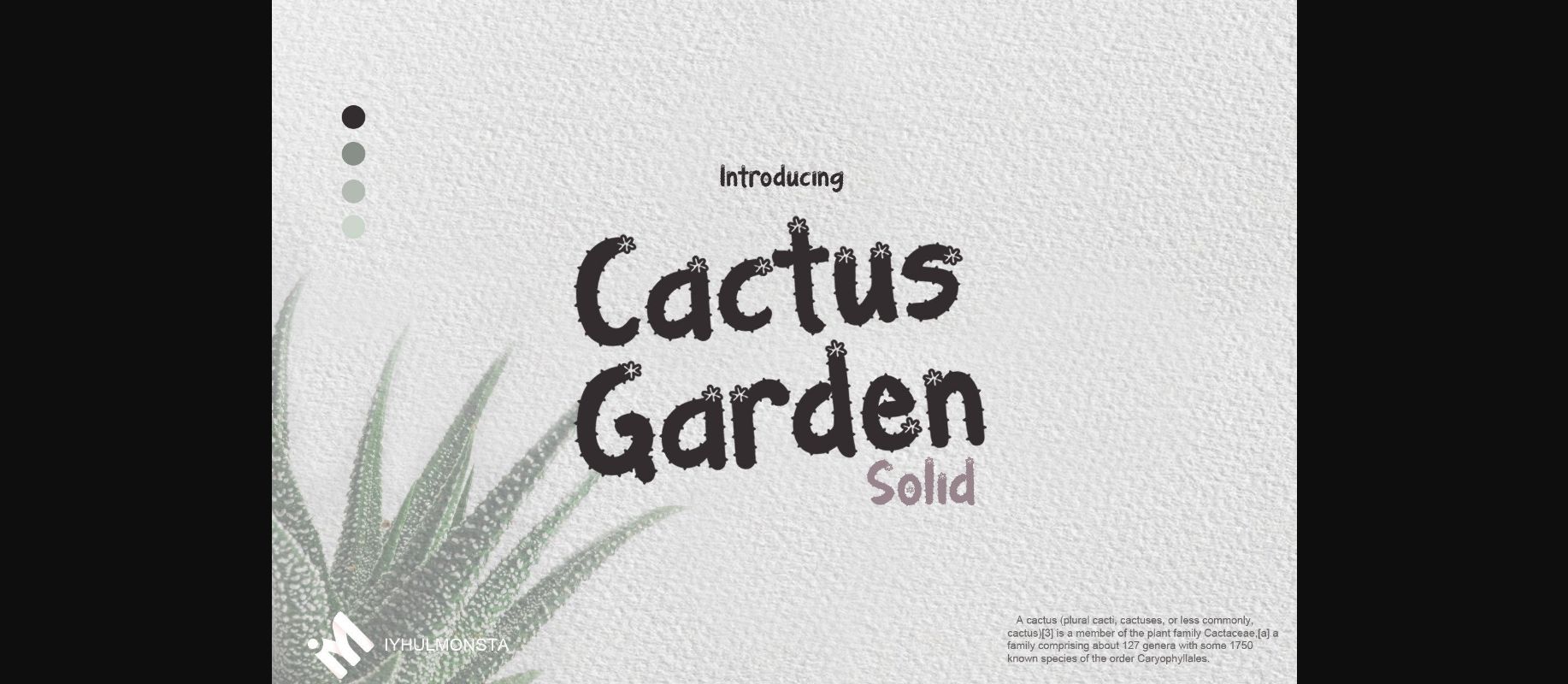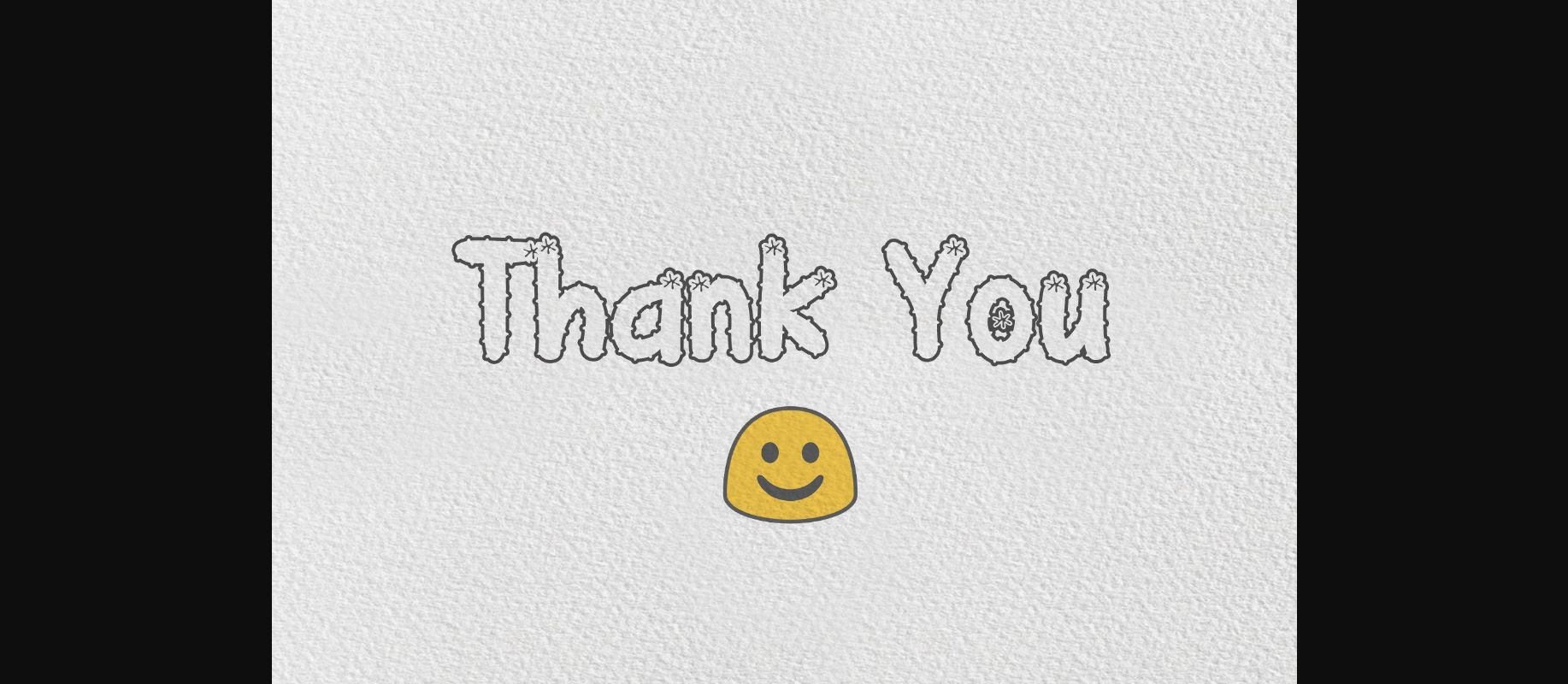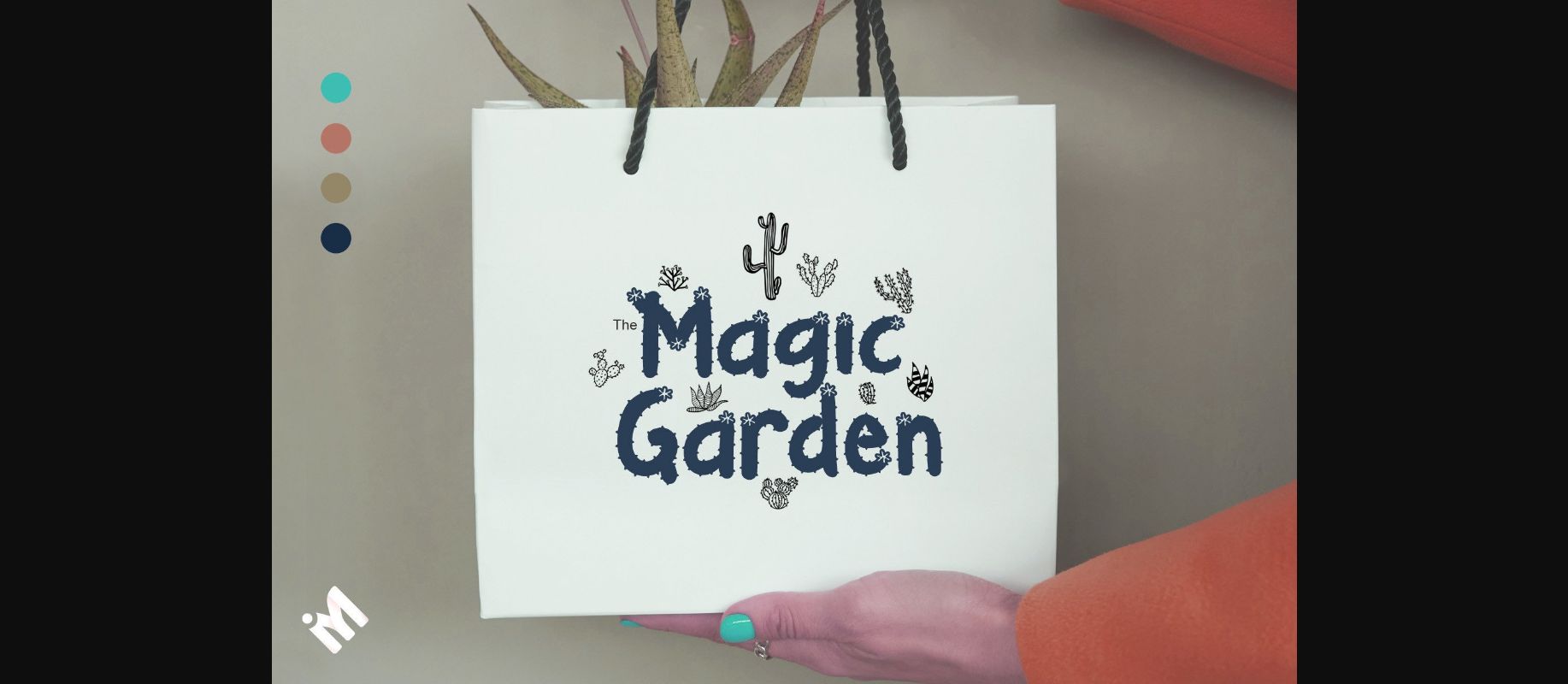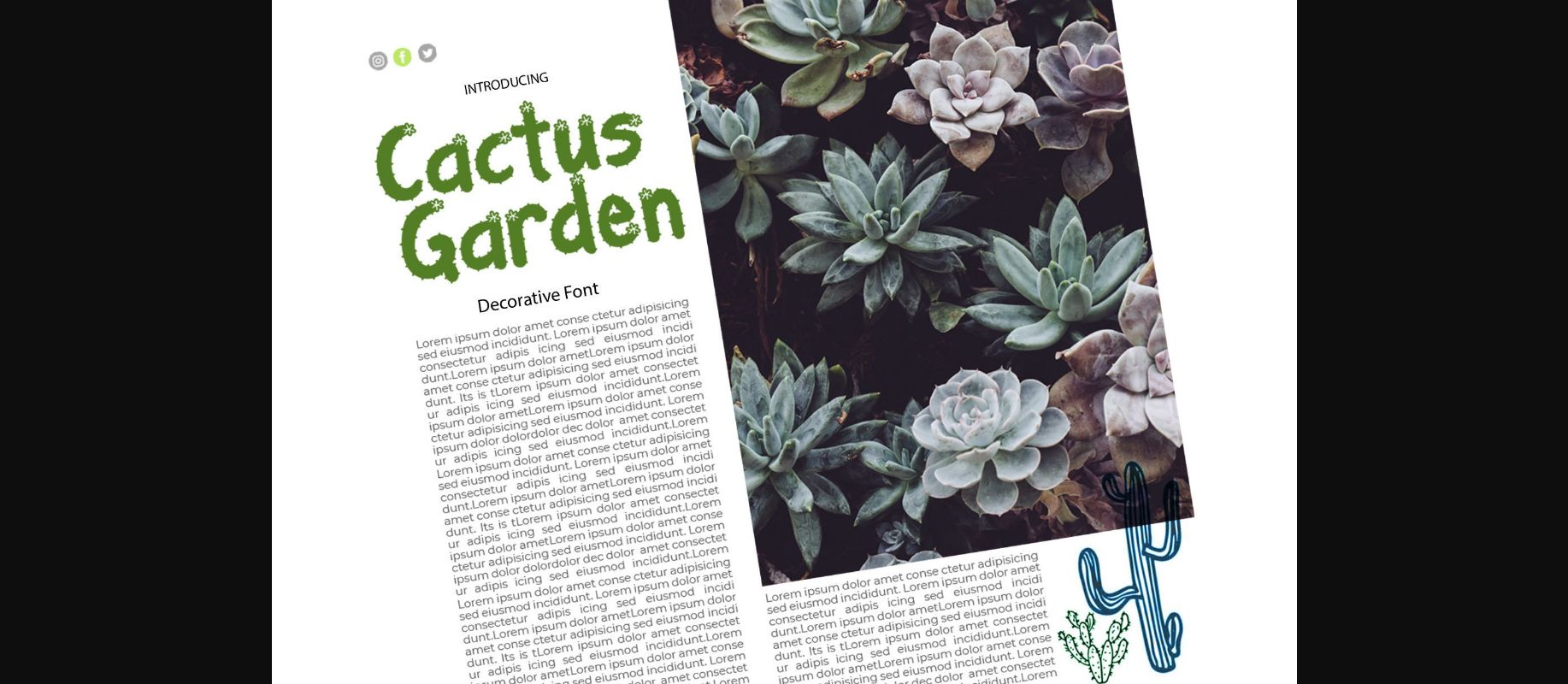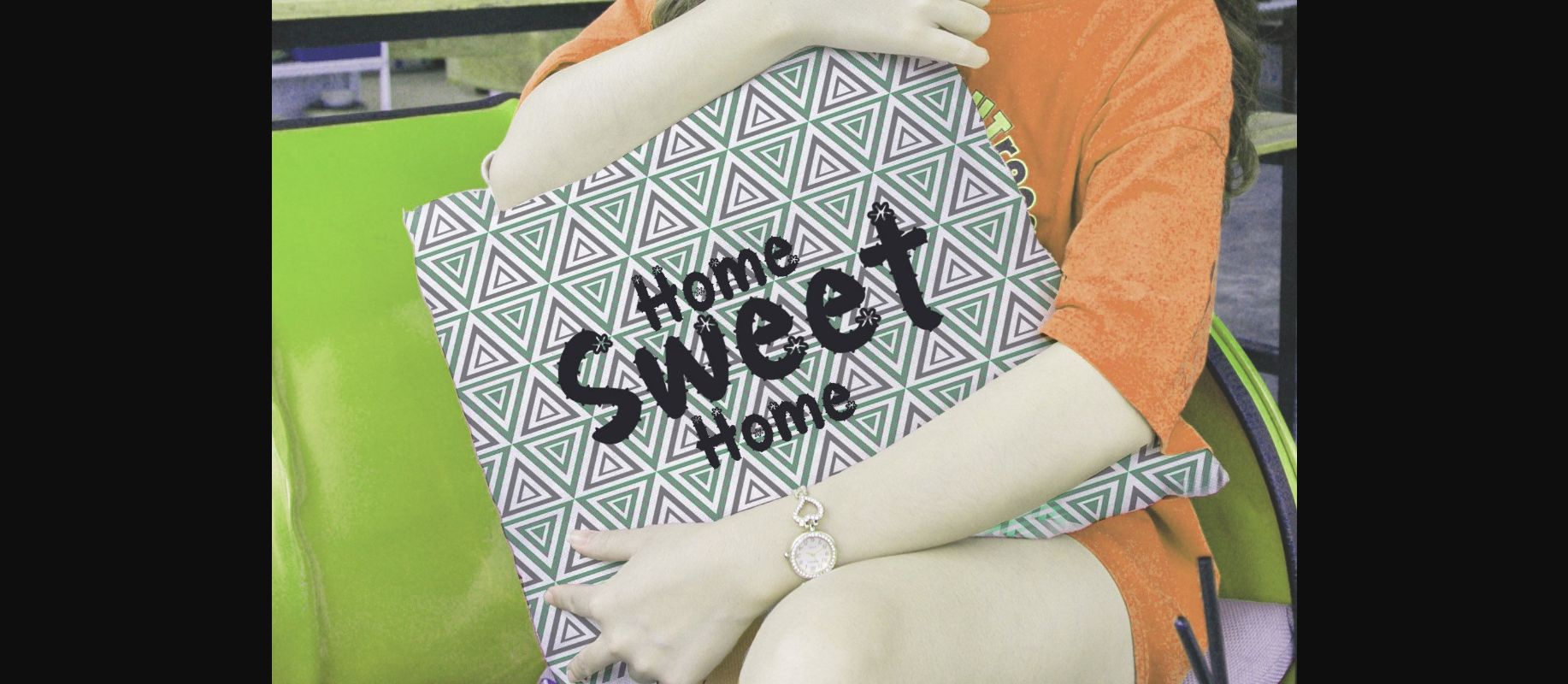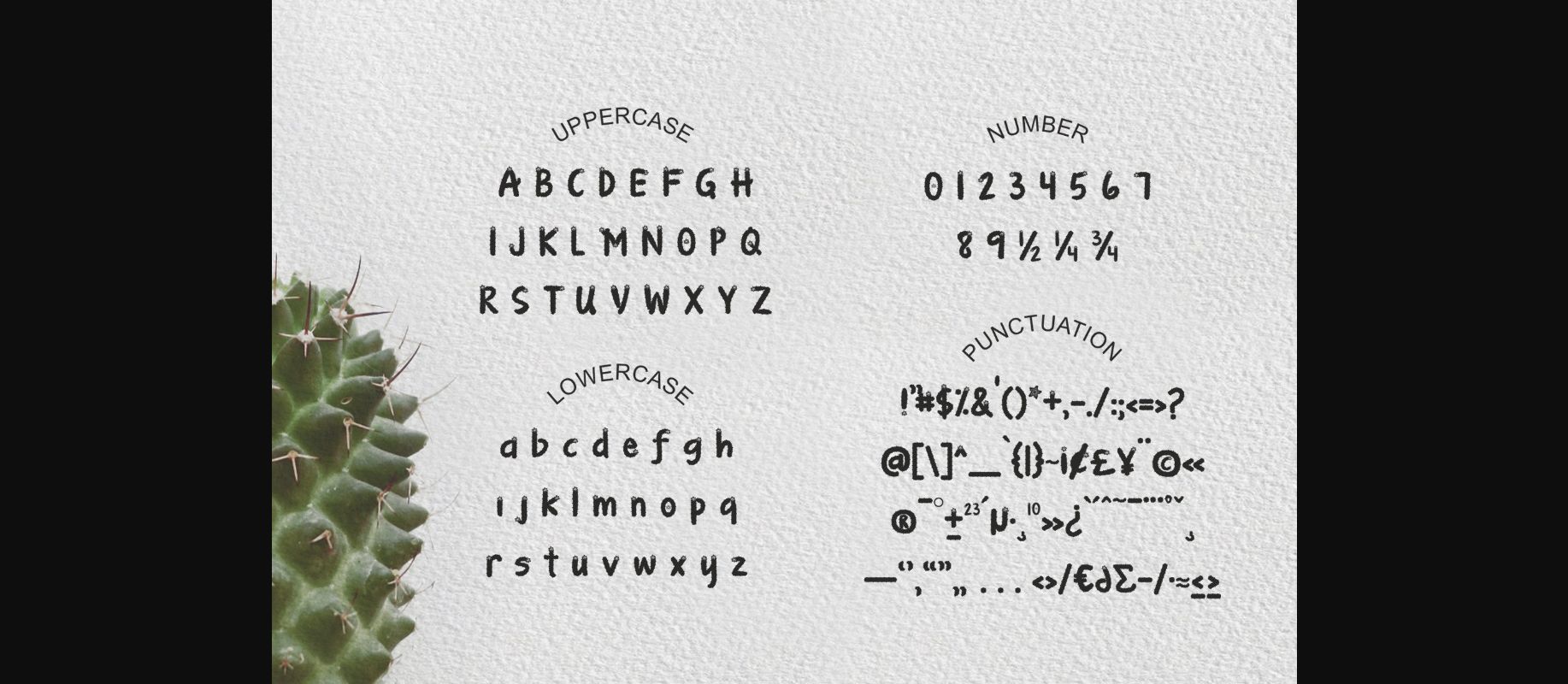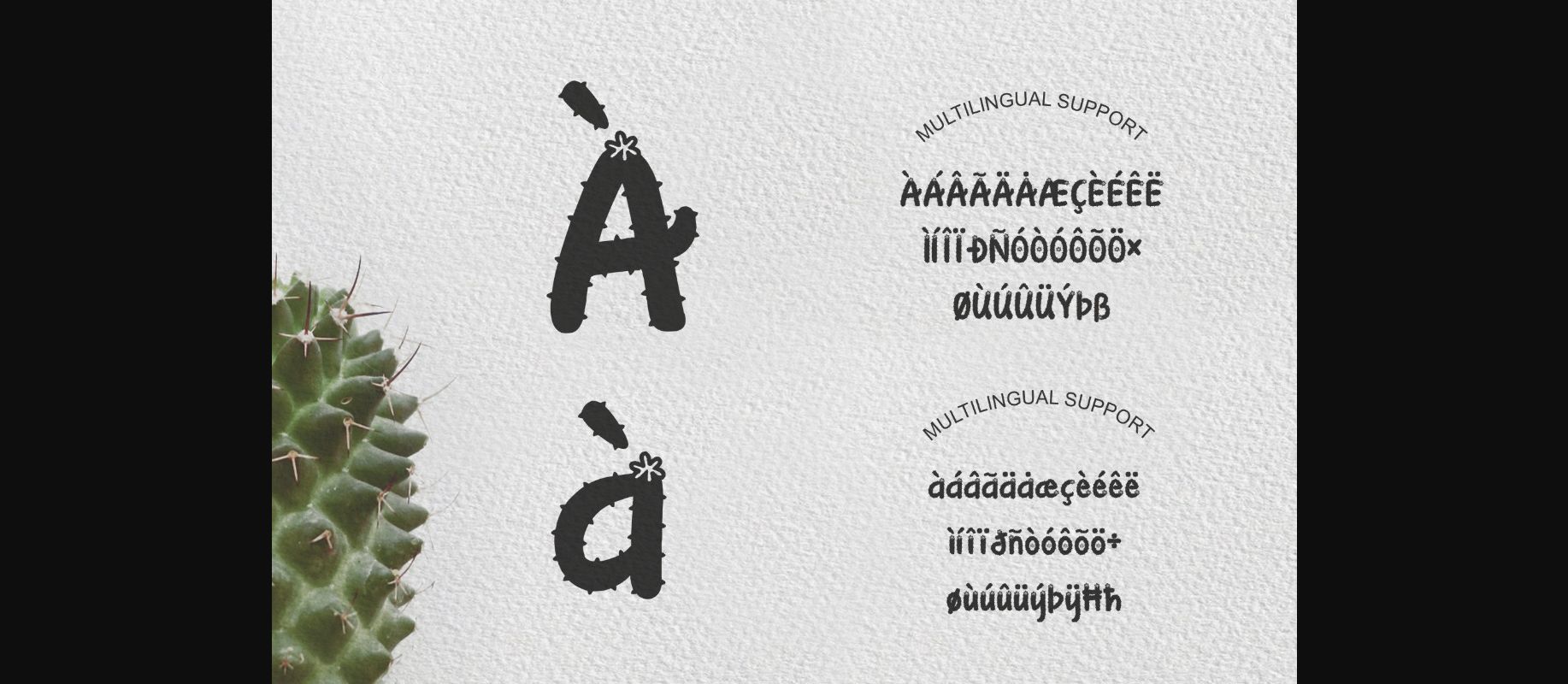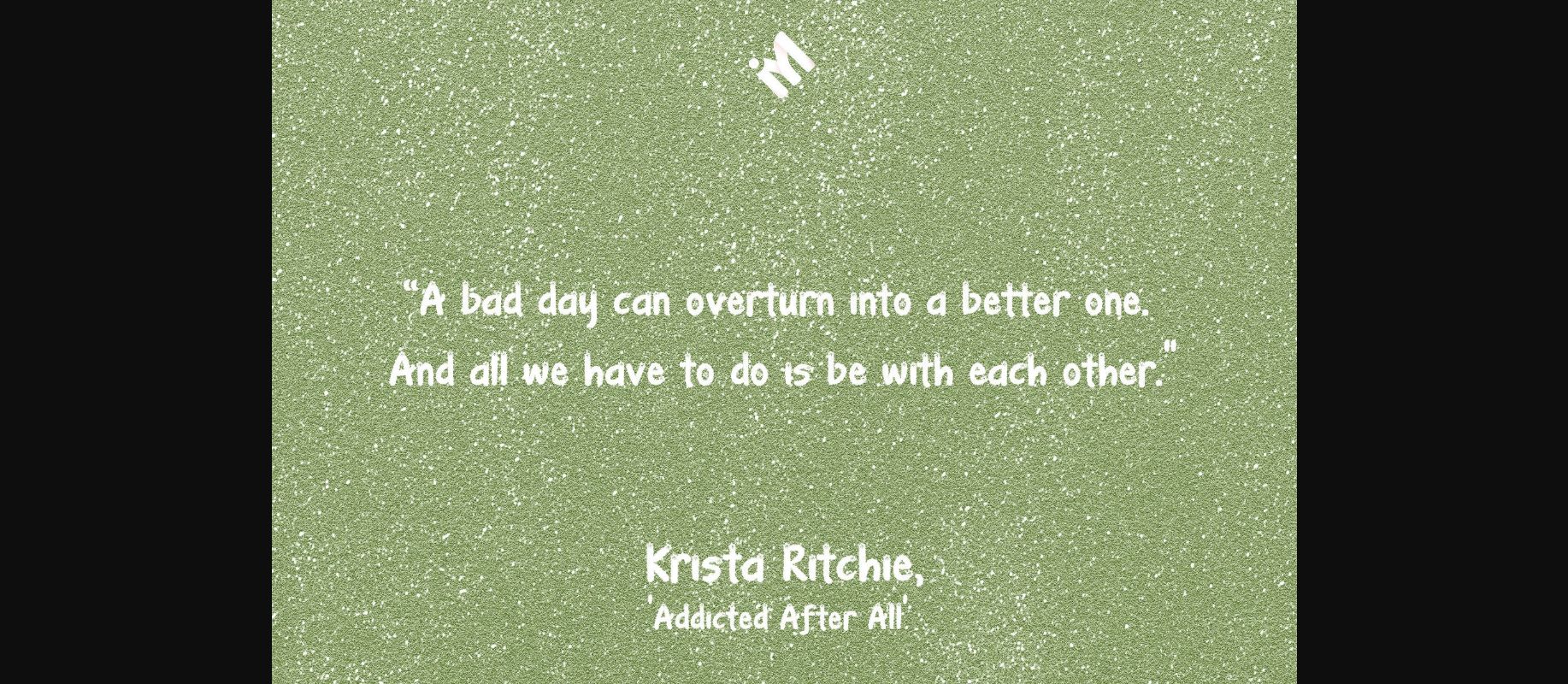
Cactus Garden Font
About Cactus Garden Font
Cactus Garden Solid is a funny decorative font that will fill your designs with cheerfulness!
Perfect for use on Branding and/or logomarks Merchandise Apparel Packaging Stationery or invitations Social media and anything that needs to pop!